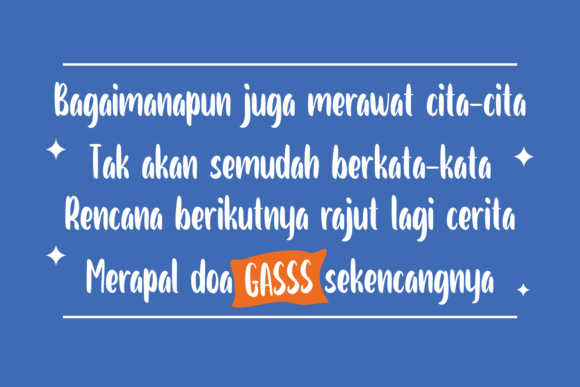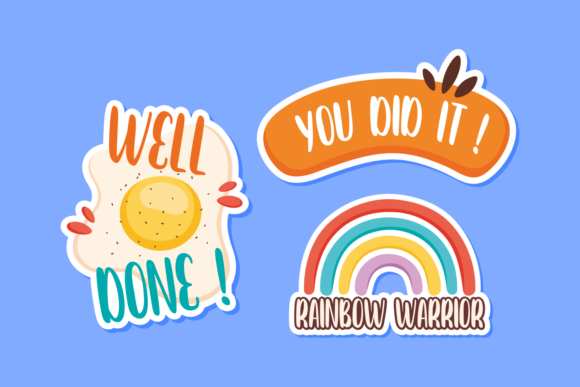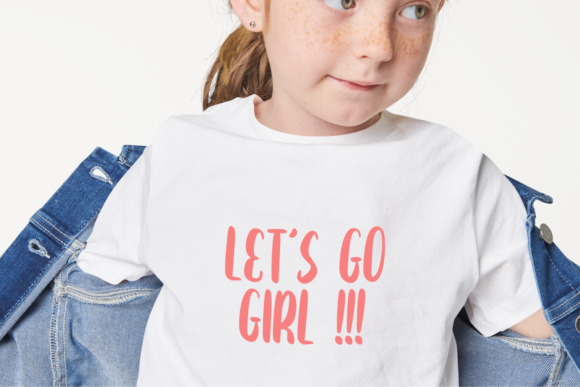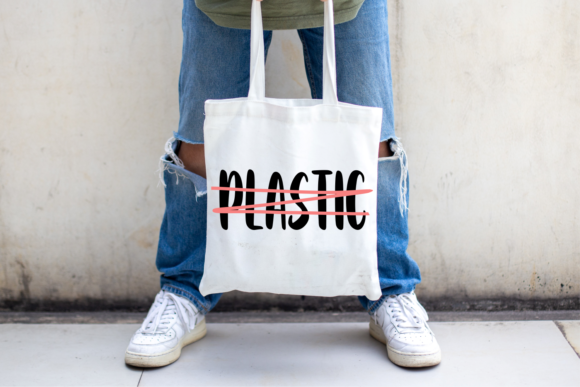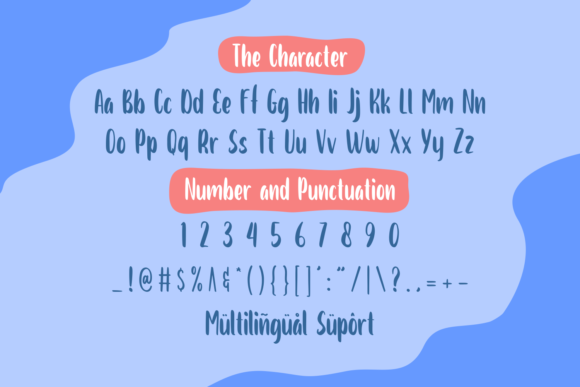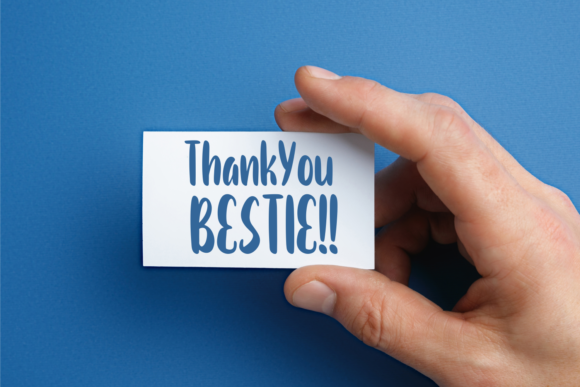
Introduction to Rarara Font
As you sit in front of your computer, staring at a blank canvas, the creative spark within you is waiting to be ignited. You’ve got a brilliant idea, but something’s missing – the perfect font to make it truly shine. That’s when you stumble upon Rarara Font, a handcrafted masterpiece that will elevate your design to new heights.
Rarara Font is more than just a typography choice; it’s a statement. Its elegant and sophisticated design will leave your audience in awe, making your branding stand out in a crowded market. With its high-quality design and versatility, this font is a valuable resource for designers looking to add a touch of sophistication to their creative projects.
Key Features of Rarara Font
- High-quality design resource ideal for creative projects, offering a unique and playful aesthetic.
- Features a transparent background, making it easy to use in any design project without worrying about background distractions.
- Includes a range of font sizes and resolutions, ensuring it can be scaled to fit any design need, from small text to large headlines.
- Designed with a modern and whimsical style, making it perfect for adding a touch of personality to any creative project.
- Supports a wide range of languages, making it a versatile design resource for global projects and audiences.
Honest Review: Rarara Font
I recently came across the Rarara Font while searching for a design resource to enhance my creative project. I was immediately drawn to its unique style and decided to give it a try.
What works well is the font’s high quality and versatility. It’s a great option for designers who want to add a touch of elegance to their projects without sacrificing readability. The font is also available for free download, which is a definite plus. One of the standout features of the Rarara Font is its transparent background, making it easy to use in a variety of design contexts.
- ✨ Unique and elegant design style
- ✨ High quality and versatile
- ✨ Transparent background
However, there are a few limitations to consider. The font may not be suitable for all types of projects, particularly those that require bold or attention-grabbing typography. Additionally, some users may find the font’s delicate style to be a bit too subtle for their taste.
Overall, I was impressed with the Rarara Font and would recommend it to designers who are looking for a high-quality, elegant font to add to their design resource library. With its unique style and versatility, it’s a great option for a variety of creative projects.
Tips for Getting the Most Out of Rarara Font
Common Use Cases for Rarara Font
The Rarara Font is a versatile design resource that can be used in a variety of projects, including graphics, presentations, and documents. It’s perfect for creating eye-catching headings, titles, and other design elements that require a high-quality font with a transparent background.